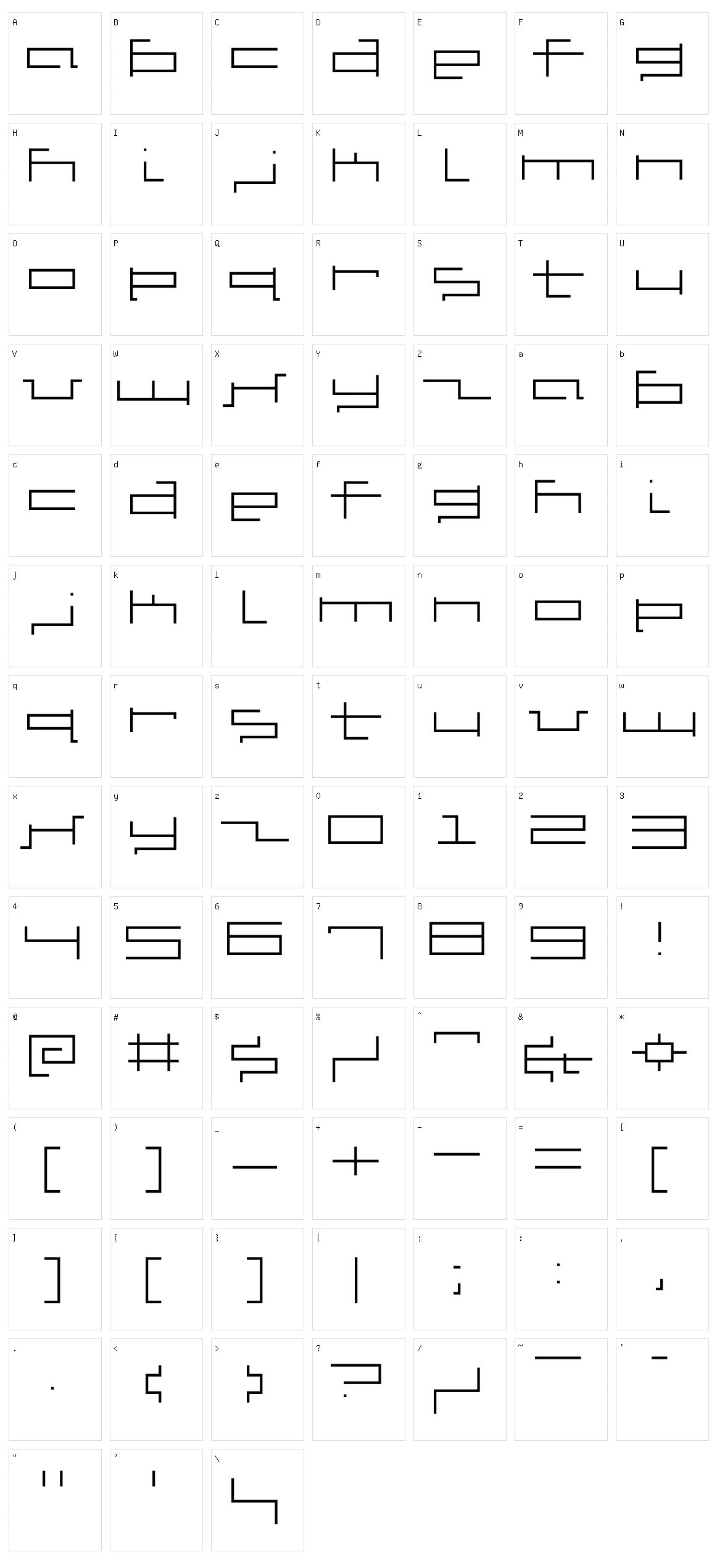
WIll work at small sizes in print.
For screen use, minimum size is 12pt.
++ Cuadra2 (SLIM) ++
WIll work at small sizes in print.
For screen use, the complete character-set
won't completely render below 17pt.
Depending on what characters you use, it may
work up to as low as 11pt. Experiment.
++ Cuadra2 (ROUND) ++
Minimum screen size is 12pt.
++ Cuadra2 (OUTLINE) ++
Use at large sizes. Experiment.